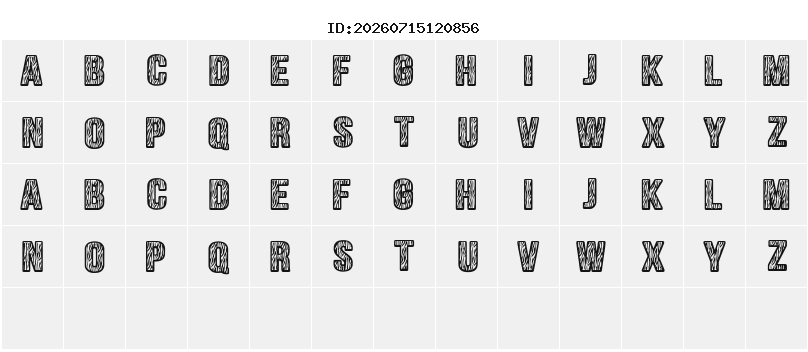
Zebraliner Preview
• Font Name: Zebraliner
• Designer: Leonard Posavec
About Zebraliner.ttf
Zebraliner.ttf is a modern, elegant sans-serif font designed for ultimate readability and visual harmony. Perfect for branding, headlines, web design, and print materials.